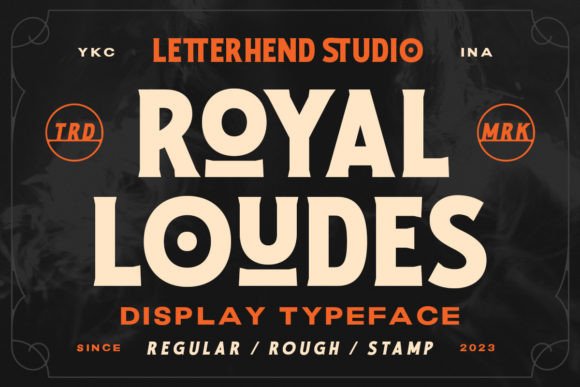
Royal Loudes Font: The Ultimate Display Font for Stunning Designs
In the world of typography, a good font can make all the difference in creating a lasting impression. When it comes to display fonts, there are many options available, but few can match the grandeur and sophistication of Royal Loudes Font. This top-of-the-line display font is designed to command attention, and its impeccable quality is evident in its flawless execution. In this article, we’ll explore the features and benefits of Royal Loudes Font, and why it’s an excellent choice for various design needs.
What is Royal Loudes Font?
Royal Loudes Font is a bold and powerful display font that exudes luxury and elegance. Its carefully crafted letters are designed to perfection, making it an ideal choice for designers who want to create stunning visual effects. The font is available in three unique styles – regular, rough, and stamp – offering a dynamic range of options to suit any design need.
Key Features of Royal Loudes Font
- Bold and Powerful: Royal Loudes Font is designed to make a statement. Its bold and powerful strokes are perfect for creating eye-catching headlines, titles, and logos.
- Impeccable Quality: Each letter is carefully crafted to perfection, ensuring a flawless execution that reflects professionalism and sophistication.
- Three Unique Styles: The font is available in three styles – regular, rough, and stamp – providing designers with a range of options to suit different design needs.
- Versatile: Royal Loudes Font is suitable for various design applications, including invitations, labels, logos, magazines, books, greeting/wedding cards, packaging, fashion, makeup, stationery, novels, and more.
Design Applications of Royal Loudes Font
Royal Loudes Font is an excellent choice for various design applications, including:
- Invitations: Create stunning invitations for weddings, parties, and other events with Royal Loudes Font.
- Logos: Use the font to create bold and memorable logos for businesses, products, or services.
- Magazines and Books: Add a touch of elegance to magazine and book covers with Royal Loudes Font.
- Greeting and Wedding Cards: Create beautiful and heartfelt greeting and wedding cards with the font.
- Packaging: Use Royal Loudes Font to create eye-catching packaging designs for products.
- Fashion and Makeup: The font is perfect for fashion and makeup brands looking to create a bold and luxurious visual identity.
- Stationery: Create professional and elegant stationery with Royal Loudes Font.
- Novels: Use the font to create captivating book covers and interior designs for novels.
Benefits of Using Royal Loudes Font
Using Royal Loudes Font offers several benefits, including:
- Attention-Grabbing: The font is designed to command attention, making it perfect for creating eye-catching designs.
- Professionalism: Royal Loudes Font exudes professionalism and sophistication, making it ideal for businesses and brands looking to create a luxurious visual identity.
- Versatility: The font is suitable for various design applications, providing designers with a range of creative options.
- Easy to Read: Despite its bold and powerful strokes, Royal Loudes Font is easy to read, making it perfect for body text and headlines.
Tips for Using Royal Loudes Font
To get the most out of Royal Loudes Font, consider the following tips:
- Use it Sparingly: Use Royal Loudes Font sparingly to create emphasis and draw attention to specific design elements.
- Pair it with Other Fonts: Pair the font with other complementary fonts to create a unique and visually appealing design.
- Experiment with Colors: Experiment with different colors to find the perfect combination that complements your design.
- Consider the Context: Consider the context in which the font will be used and adjust the design accordingly.
Royal Loudes Font is a top-of-the-line display font that commands attention and exudes professionalism and sophistication. Its impeccable quality, versatility, and range of styles make it an excellent choice for various design applications. Whether you’re looking to create stunning invitations, logos, magazines, or packaging designs, Royal Loudes Font is an excellent choice. With its bold and powerful strokes, ease of readability, and flexibility, this font is sure to elevate your designs to the next level.
- What is Royal Loudes Font? Royal Loudes Font is a bold and powerful display font designed to command attention and exude professionalism and sophistication.
- What styles is Royal Loudes Font available in? Royal Loudes Font is available in three unique styles – regular, rough, and stamp.
- What design applications is Royal Loudes Font suitable for? Royal Loudes Font is suitable for various design applications, including invitations, logos, magazines, books, greeting/wedding cards, packaging, fashion, makeup, stationery, novels, and more.
- Is Royal Loudes Font easy to read? Yes, despite its bold and powerful strokes, Royal Loudes Font is easy to read, making it perfect for body text and headlines.